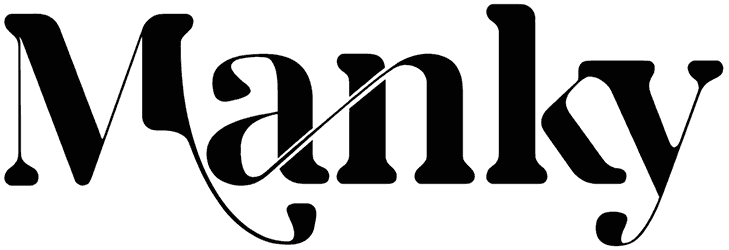
Manky Font
Any place where you want people to feel at ease and happy would benefit greatly from an approachable, modern font with a sense of fun. Websites, apps, and urban designs are all effective means of grabbing attention.